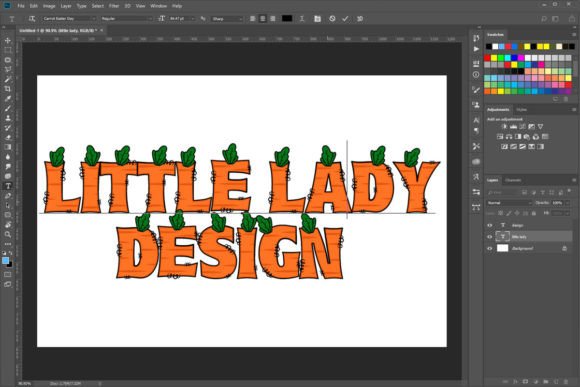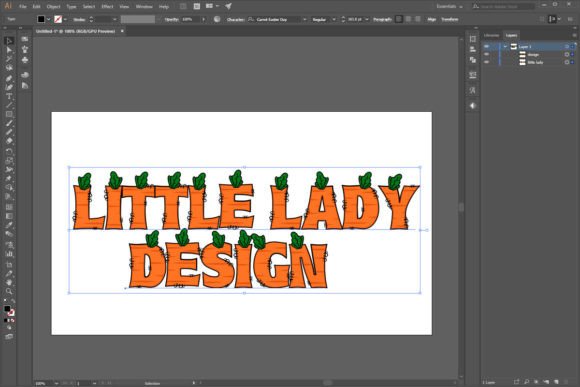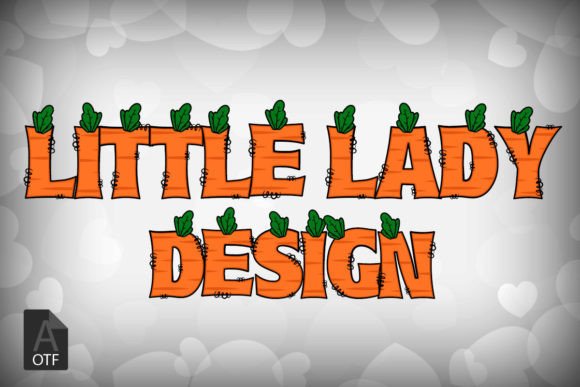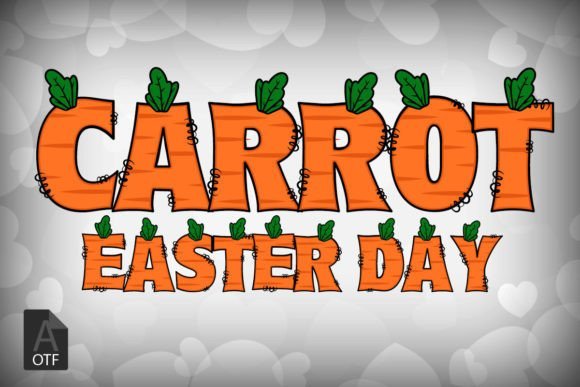
Introduction to Carrot Easter Day Font
Carrot Easter Day is a vibrant display font that combines a retro aesthetic with bold, bright colors for a lively and eye-catching design.
You can use it to create Easter-themed designs and lots of other project ideas .
Key Features of Carrot Easter Day Font
Why Choose Carrot Easter Day Font?
Carrot Easter Day Font offers exceptional quality and versatility, making it a valuable addition to your design toolkit. Whether you’re creating for personal projects or commercial use, Carrot Easter Day Font delivers professional results.